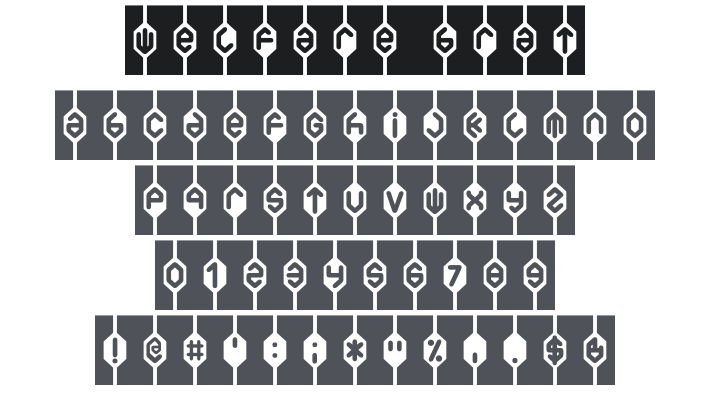
Welfare Brat Font
About Welfare Brat
Welfare Brat is a bold, modular display typeface where every letterform is enclosed in a rounded hexagonal or diamond-shaped tile with vertical connector bars top and bottom — like electronic components on a circuit board or fence posts strung together. The compact, quirky letterforms inside each tile add to the industrial, utilitarian charm. Perfect for tech branding, circuit-board aesthetics, industrial signage, sci-fi interfaces, and any headline needing a structured, gridded personality.